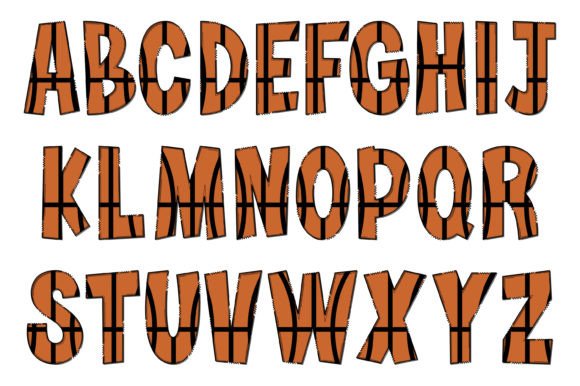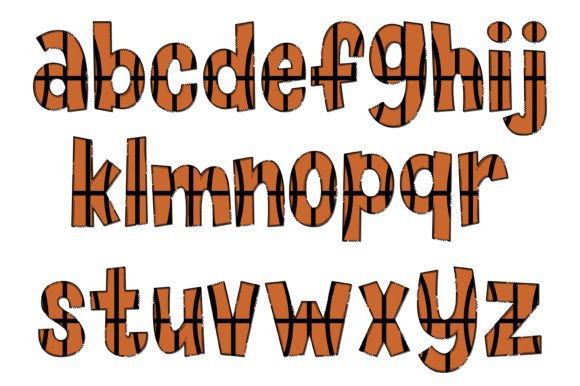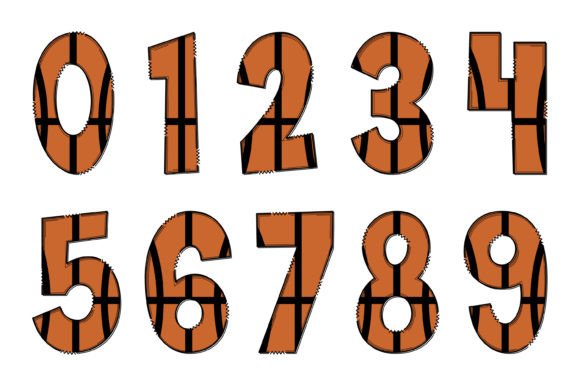
Slam Dunk into Creativity with Basketball Font
You know that moment when a design idea suddenly hits you, and you can’t wait to bring it to life? For many designers, it’s the perfect blend of creativity and playfulness that sparks inspiration. And what better way to capture that magic than with a font that embodies the spirit of fun and adventure?
Introducing Basketball Font, a color font designed to add a touch of whimsy to your designs. Perfect for children’s books, posters, invitations, and greeting cards, this font is sure to bring a smile to your audience’s faces. As a color font, it’s compatible with a range of design software, including PhotoShop, Illustrator, Silhouette, and Inkscape. Whether you’re a seasoned designer or just starting out, Basketball Font is a valuable addition to your creative toolkit.
- Font Family: Basketball Font is a unique, hand-drawn font designed specifically for sports and entertainment applications.
- Unique Characteristics: The font features a bold, dynamic design with exaggerated lines and shapes, giving it a distinctive and eye-catching appearance.
Basketball Font Review
Overall, I think Basketball Font has some great features that could work well in certain design contexts, but it’s not perfect.
- The font’s bold and playful style makes it perfect for sports-related designs, like jerseys, posters, or social media graphics.
- The font is highly customizable, allowing designers to easily adjust the size, color, and spacing to fit their design needs.
- The font is optimized for digital use, making it look great on screens and in print.
- The font may not be suitable for more formal or professional designs, as its playful style may not convey the right tone.
- The font’s bold style can make it difficult to read at smaller sizes or in certain colors.
- The font’s customization options can be overwhelming for designers who are new to font customization.
I think Basketball Font is a solid choice for designers who are looking for a bold and playful font for sports-related designs. While it may not be suitable for every design context, it’s definitely worth considering for the right project.
Use Basketball Font to add a sports-themed touch to your designs. It’s perfect for creating posters, flyers, and social media graphics related to basketball. Experiment with different font sizes, styles, and colors to create a unique look.
Basketball Font is commonly used for:
– Basketball team logos and branding
– Sports-themed posters and flyers
– Social media graphics and promotions
– Event invitations and announcements